How to make a monoline font
You would like to find out how to easily create the perfect monoline font. We share with you our best kept secrets.
Monoline fonts are fonts that share the same stem thickness vertically and horizontally. It is great for handwritten fonts, or display fonts like this one:
Drawing paths
The first step to create a font is, of course, to draw paths. Duh. But monoline fonts need open paths. The ends of open paths are displayed as flat nodes instead of round ones, and there is an arrow, showing you the path direction:
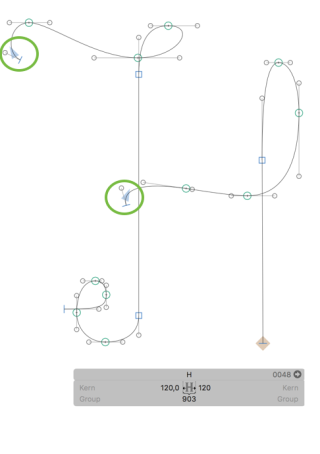
Looks good! But those paths are only the ‘skeleton’ of a monoline font. Open paths can’t be exported. So, now we need to put some flesh on its bones. There’s a few ways to do that. Read on.
Offset curve filter
The first way is the Filter Offset Curve. Just go to Filter > Offset Curve to invoke it.
Enter the values of your choice and check the Make Stroke option. You should then see an expanded preview of your glyph. The Position setting controls the distribution of the expansion. At 0%, the path will only expand to the right. At 100%, the path will only expand to the left. At 50%, the expansion will be evenly distributed to both sides of the path, which is probably what you want. Right and left sides are determined by the path orientation.
With the Auto Stroke option, the vertical dimensions will be kept intact. In that case, the offset position will be assumed at 50%.
But don’t press the Offset button yet. Instead, click on the gear wheel. Choose Copy Custom Parameter. Because if you do that, this will put the values into our clipboard as a custom parameter, and thus, we will be able to work non-destructively.
Now, press Cancel in the Offset Curve window, then go to File > Font Info (Cmd-I), and choose the Instances tab. Click the plus button in the bottom left corner of the window to add a new instance, and name it something striking. I call mine ‘Offset 20’ because I feel totally creative today. Now click in the white area of the Custom Parameters field to set the focus, and press Cmd-V to paste the previously copied custom parameter.
Now, when you export your font, the custom parameter will set in and you’ll see your offset active. To export the font, go to File > Export (Cmd-E) and choose a file format. Leave Remove Overlap unchecked, though. Because this option would delete our precious open paths. We suggest to test your font in Adobe programs.
For a preview of what your exported font will look like, you can activate View > Show Offset Preview. Glyphs will show a grey preview in Edit view, provided the filter was used once before. If it was, Glyphs saves the value in its preferences and the preview reads its values from there. Tip: Just apply Offset Curve once and undo it straight afterwards with Cmd-Z.
Round corners
Sometimes, corners and endings can look weird. In this example, the corner looks really ugly and the ending is pretty weird, too. Yuck!
If you want your font to have rounded corners, there’s an easy way to get there. Go to Filter > Round Corners and choose your radius. By checking Visual Corrections, Glyphs adjusts the radius of your corner roundings, so they appear the same size.
Again, copy the custom parameter code by clicking on the gear wheel and choosing Copy Custom Parameter. Go to File > Font Info (Cmd-I) and press Cmd-V to paste the custom parameter after the Offset Curve parameter. Now, export again, and choose the file format.
Noodler filter
To get the results of Offset Curve and Round Corners in one step, you can use mekkablue’s Noodler filter. To install it, go to Window > Plugin Manager, look for the Noodler filter, and click on its Install button, then restart Glyphs. You can now find it at Filter > Noodler.
Change the value of Thicknesses according to your design. Like before, you can work non-destructively, don’t apply it directly, but click on the gear wheel and choose Copy Custom Parameter. Go to Font Info > Instances > Custom Parameters (Cmd-I) and, like before, paste the code with Cmd-V. Alternatively, you can add a new Instance and paste it there. This way, you’ll have two separate versions of your font for comparison.
But there is a difference between Noodler on the one hand, and Offset Curve plus Round Corners, on the other hand. The Noodler filter adds a round ending to the path, while Round Corners rounds the end of the path:
Problems
Problems can occur if you have a path with double bends, i.e. a segment that first bends clockwise, and then counter-clockwise, and vice versa. In this case, you should add a node on the inflection point of the segment to keep your thickness. To do that, hold Shift while clicking on the path. Glyphs will find the nearest extremum or inflection point, and insert a node there. Here is an example of how a double bended path looks like with and without an inflection point when Offset Curve is active:
Or you can use mekkablue’s Insert Inflections filter, also available via Window > Plugin Manager: like above, click on Install, restart the app, and you will find it in the Filter menu. For more info on the filter, including on how to use it as a custom parameter, see its GitHub page. The Noodler and BroadNibber filters automatically insert inflections.
There could also be problems when your curves are too narrow:
To prevent that, well, you should draw wider curves. Sometimes extremum points and inflection nodes can help, too.
If you have acute corners and Round Corner gives you weird results, you can split the path in two. To do so, select the Draw Tool (P) and click onto the node you want to divide.
Broad Nibber filter
If you want to turn your glyphs into broad-nib strokes, you can use mekkablue’s BroadNibber filter. Again, you install it via Window > Plugin Manager, clicking on the Install button, and restarting Glyphs. After the restart, you will have the menu item Filter > Broad Nibber.
The filter simulates a broad-nibbed pen. Experiment with the values in the dialog, then click the gear wheel, choose Copy Custom Parameter from the menu and paste the code in the Custom Parameters field of an instance in Font Info > Instances (Cmd-I).
Roughen
This one is a rather funny filter. Go to Filter > Roughen.
Your path gets chopped up into little straight path segments and the nodes are randomly scattered. If you have your Offset Curve preview on, you’ll see the end result straight away. Again, copy the custom parameter code by clicking on the gear wheel and choosing Copy Custom Parameter. Go to your Font Info (Cmd-I) and paste the code with Cmd-V, or add a new Instance and paste it there.
Combining the filters
If you want to combine multiple filters, you need to watch out. The order of the custom parameters is really important. The graininess will change (more or less) significantly, when you rearrange the order:
If you look closely, not only the graininess has changed. There are also differences in the roundness of the corners, as well as the parallelism and thickness of the outlines.
Tip For The Geeks: You can add multiple values in mekkablue’s Noodler filter (available via Window > Plugin Manager). Check it out:
Have fun experimenting!